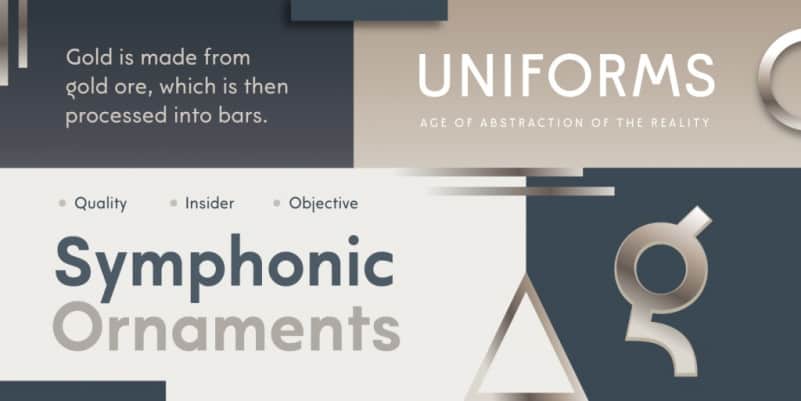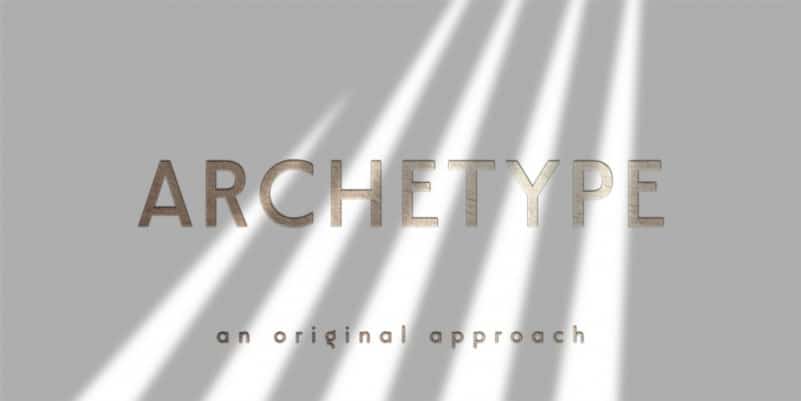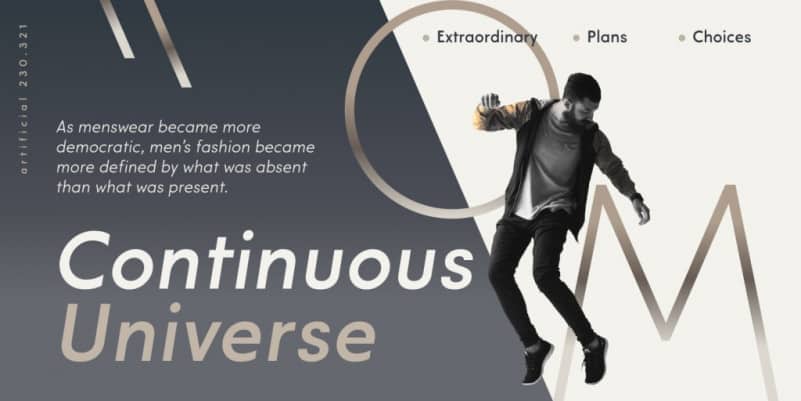
Modeco Trial Sans Serif Font Family
Modeco Trial Sans Serif Font is a feminine, creative, and unique display sans-serif font that is packed full of alternates and ligatures to create great variety in your designs. Made from font designer named ekobimantara. It’s a merge of modern and art deco styles. Its shown elegance, classy, ​​and glamour look as 1920’s visual trends, blended with geometrical sans serif in a functionality approach and complete font family styles. Its consist of 9 styles from Thin to Black with each matching oblique. It’s contain 400+ glyphs that covered broad latin language.